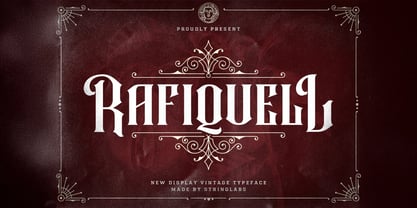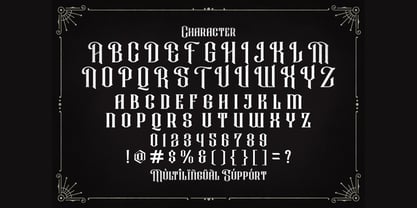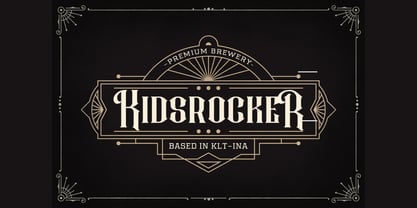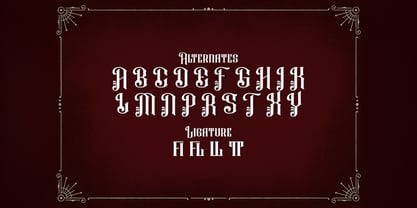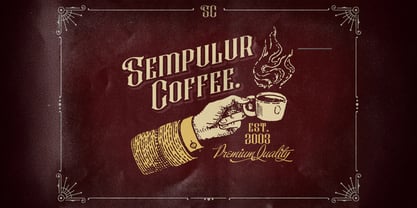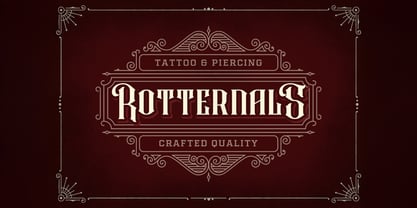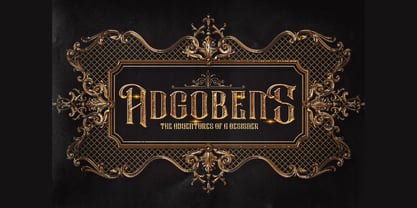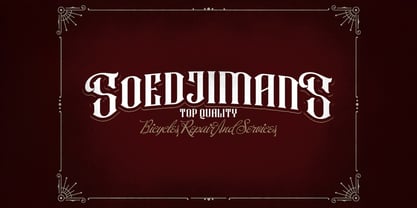
The Rafiquell Font Family was designed by Virgiawan Listanto and published by Stringlabs Creative Studio. Rafiquell contains 1 styles. More about this family
Rafiquell is a luxurious Victorian style font that exudes classic elegance and vintage grandeur. With its decorative serifs, ornate letterforms, and timeless aesthetic, Rafiquell brings the charm of 19th century typography to modern-day design. Whether you're designing upscale packaging, theatrical posters, or heritage branding, Rafiquell adds a rich, historical character that instantly captivates.
Designers: Virgiawan Listanto
Foundry: Stringlabs Creative Studio
Rafiquell